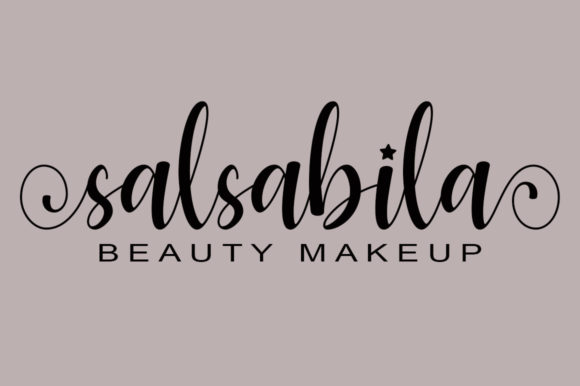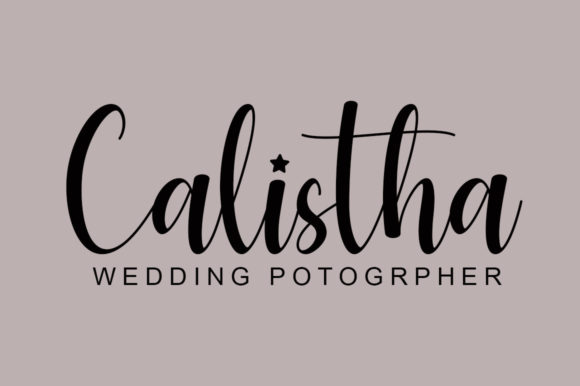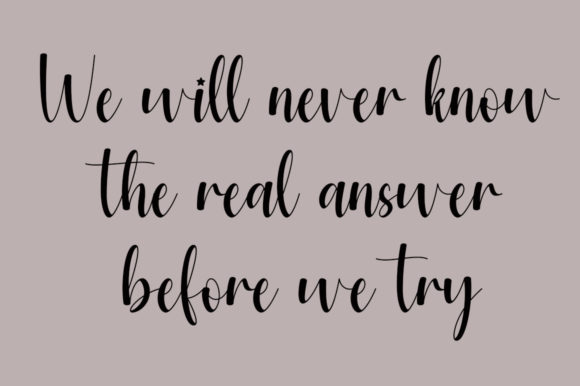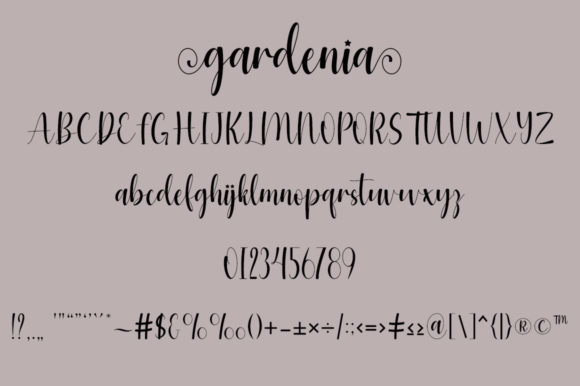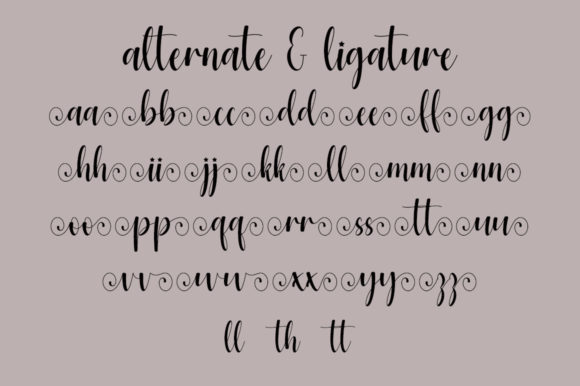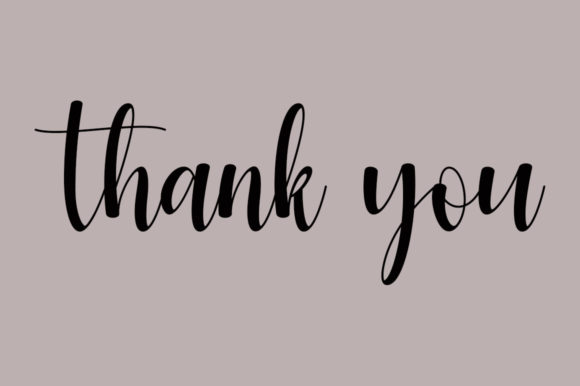
Gardenia Font: Elevate Your Design with Luxury and Elegance
Are you looking for a font that can add a touch of luxury and sophistication to your design projects? Look no further than the Gardenia Font. This beautiful, light handwritten font is sure to make a stunning impact on any design you create. With its unique feel and elegant style, Gardenia Font is the perfect choice for designers and crafters who want to take their work to the next level.
What Makes Gardenia Font So Special?
Gardenia Font is a one-of-a-kind font that boasts a range of features that set it apart from other fonts. Here are just a few things that make Gardenia Font so special:
- Unique and Elegant Style: Gardenia Font has a light, handwritten style that is both elegant and sophisticated. Its unique feel makes it perfect for designs that require a touch of luxury and refinement.
- PUA Encoded: Gardenia Font is PUA (Private Use Area) encoded, which means that you can access all of the amazing glyphs and ligatures with ease. This makes it easy to create beautiful, intricate designs that are sure to impress.
- Highly Versatile: Gardenia Font is highly versatile and can be used for a wide range of design projects, from branding and advertising to packaging and stationery.
- Pair it with Other Fonts: Gardenia Font pairs well with other fonts, making it easy to create beautiful, harmonious designs. Try pairing it with a bold font for a striking contrast.
- Use it for Headings and Titles: Gardenia Font is perfect for headings and titles, where its elegant style can really shine. Use it to add a touch of luxury to your designs.
- Experiment with Glyphs and Ligatures: With Gardenia Font’s PUA encoding, you can access a range of glyphs and ligatures that can add an extra layer of interest to your designs. Experiment with different combinations to create something truly unique.
- High-Quality Design: Gardenia Font is a high-quality font that is designed to produce stunning results. Its unique style and elegant feel make it perfect for designs that require a touch of luxury.
- Versatility: Gardenia Font is highly versatile and can be used for a wide range of design projects. This makes it a great addition to any designer’s toolkit.
In conclusion, Gardenia Font is a beautiful, light handwritten font that is sure to add a touch of luxury and sophistication to any design project. With its unique feel, elegant style, and PUA encoding, it’s the perfect choice for designers and crafters who want to take their work to the next level. Whether you’re creating branding, advertising, packaging, or stationery, Gardenia Font is a great choice. So why not give it a try and see the difference it can make?
Key Features of Gardenia Font
- Beautiful, light handwritten font
- Unique feel and elegant style
- Highly versatile and suitable for a wide range of design projects
- Easy to use, even for those new to design
- High-quality design for stunning results